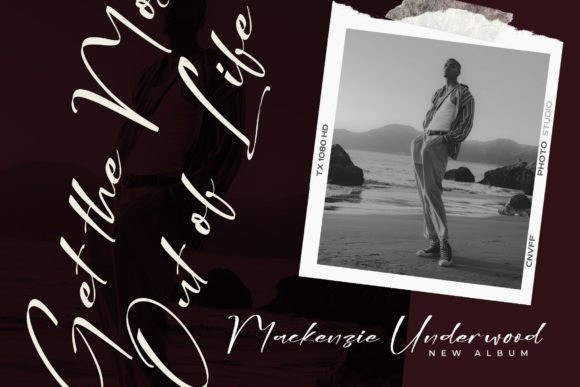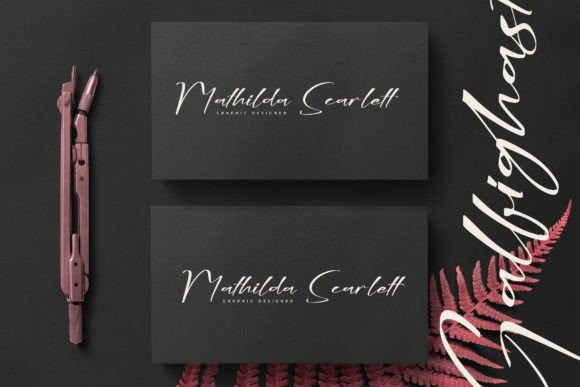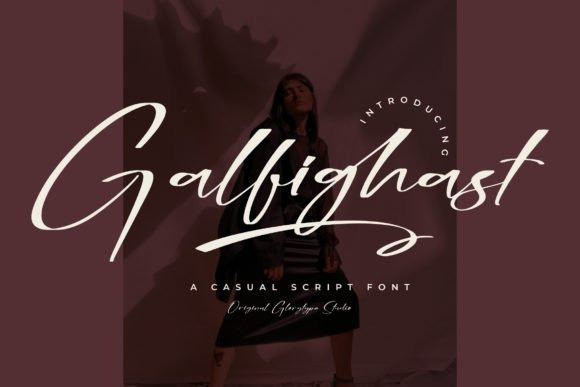
Galfighast Font
Galfighast – Casual Script Font , from Glorytype Studio, suitable for any projects such as: logos, branding projects, homeware designs, product packaging, mugs, quotes, posters, shopping bags, t-shirts, book covers, name card, invitation cards, greeting cards, label, photography, watermark, special events, and all your other lovely projects that need a beautiful script taste.